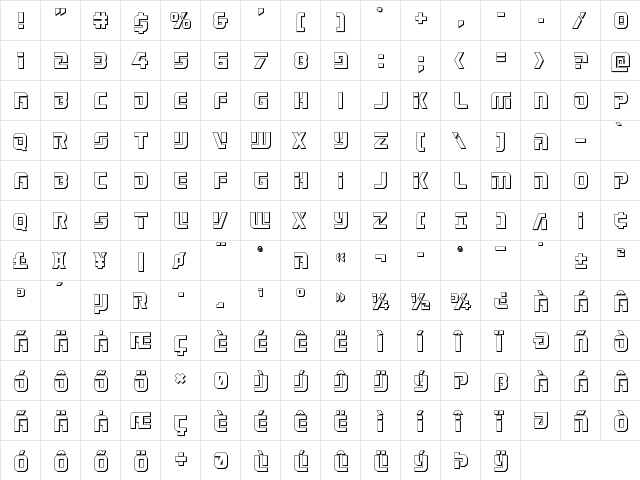
Legio Sabina 3D Regular
Design Context for Legio Sabina 3D Typeface
Legio Sabina 3D is a composed and adaptable typeface that performs quietly and consistently across a wide range of design contexts.